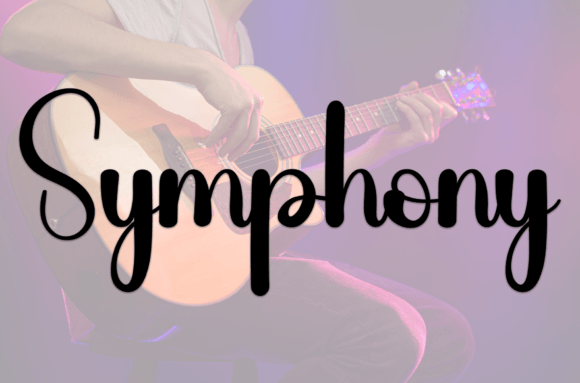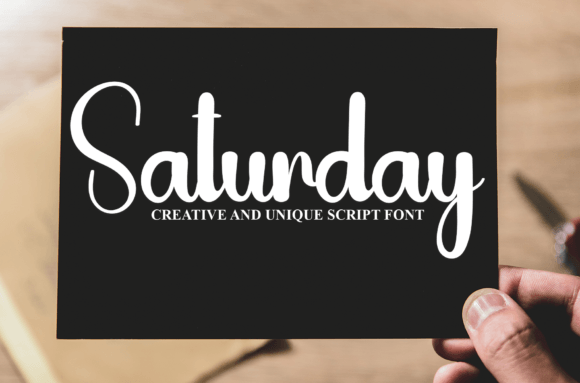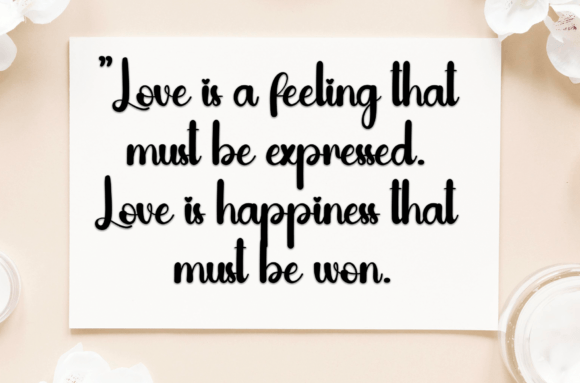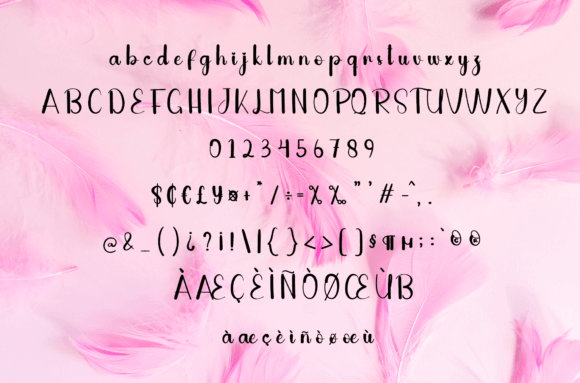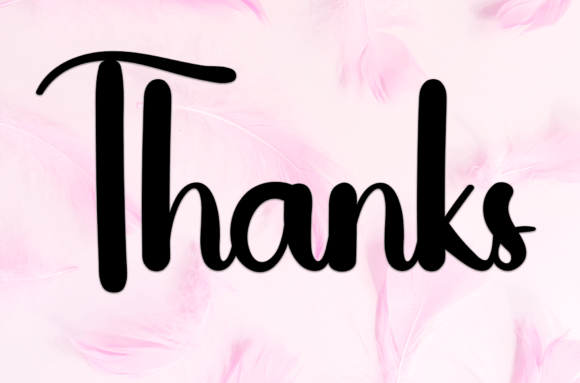
Billyna Font: The Sweet and Friendly Handwritten Font for Your Creative Projects
Are you looking for a font that can add a touch of sweetness and friendliness to your designs? Look no further than Billyna Font! This beautiful handwritten font is perfect for creating wedding invitations, cards, and other designs that require a fun and creative touch. In this article, we’ll take a closer look at Billyna Font and explore its features, benefits, and uses.
What is Billyna Font?
Billyna Font is a sweet and friendly handwritten font that is designed to bring a touch of whimsy and playfulness to your designs. With its creative and cute style, this font is ideal for a variety of projects, from wedding invitations and cards to social media graphics and blog posts. Whether you’re a designer, crafter, or DIY enthusiast, Billyna Font is a great choice for adding a personal touch to your work.
Features of Billyna Font
Billyna Font has several features that make it a great choice for designers and crafters. Some of its key features include:
- Handwritten style: Billyna Font has a beautiful, handwritten style that gives it a personal and unique touch.
- Sweet and friendly: The font has a sweet and friendly feel that’s perfect for creating designs that are approachable and inviting.
- Creative and cute: Billyna Font is a creative and cute font that’s ideal for adding a fun touch to your designs.
- Versatile: This font is versatile and can be used for a variety of projects, from wedding invitations and cards to social media graphics and blog posts.
Benefits of Using Billyna Font
There are several benefits to using Billyna Font in your designs. Some of the benefits include:
- Easy to read: Billyna Font is easy to read, even at small sizes, making it perfect for creating designs that need to be clear and legible.
- Unique and creative: The font has a unique and creative style that will help your designs stand out from the crowd.
- Time-saving: With Billyna Font, you can create beautiful designs quickly and easily, saving you time and effort.
Uses of Billyna Font
Billyna Font is a versatile font that can be used for a variety of projects. Some of the most popular uses for this font include:
- Wedding invitations: Billyna Font is perfect for creating beautiful and unique wedding invitations that will set the tone for your special day.
- Cards: This font is great for creating cards for birthdays, holidays, and other special occasions.
- Social media graphics: Billyna Font can be used to create social media graphics that are fun, creative, and engaging.
- Blog posts: This font is ideal for adding a personal touch to your blog posts and making them more visually appealing.
Tips for Using Billyna Font
Here are some tips for using Billyna Font in your designs:
- Use it with images: Billyna Font looks great when paired with images, so consider using it with photos or illustrations to create a visually appealing design.
- Experiment with colors: This font comes in a range of colors, so don’t be afraid to experiment and find the perfect color for your design.
- Keep it simple: Billyna Font is a simple and elegant font, so keep your design simple and uncluttered to let the font shine.
In conclusion, Billyna Font is a sweet and friendly handwritten font that’s perfect for designers and crafters who want to add a personal touch to their work. With its creative and cute style, this font is ideal for a variety of projects, from wedding invitations and cards to social media graphics and blog posts. Whether you’re looking for a font that’s easy to read, unique and creative, or cost-effective, Billyna Font is a great choice.